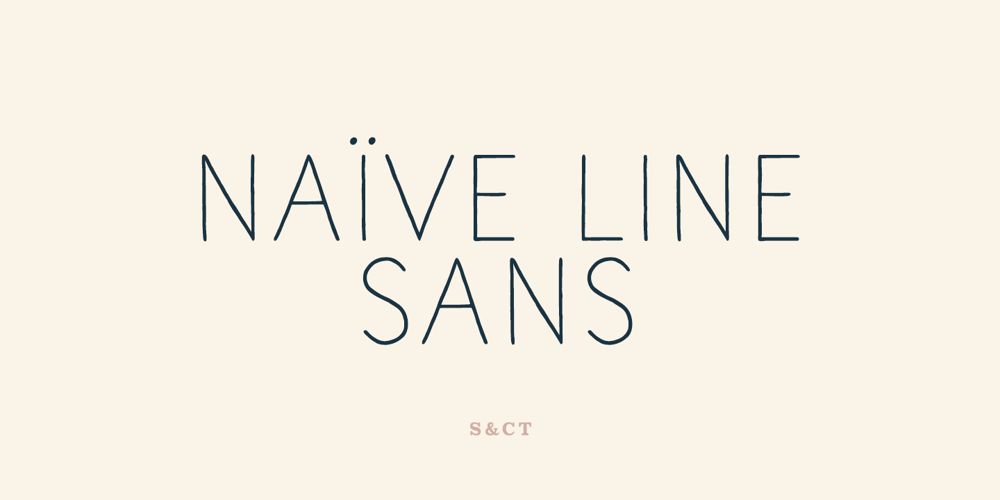
Naive Line Sans Font Family was designed by Julien Saurin, Fanny Coulez and published by S&C Type. Naive Line Sans contains 5 styles and family package options. Naïve Line Sans is an unusual handwritten sans serif font designed by Fanny Coulez and Julien Saurin in Paris. Our goal was to draw a font with finely irregular lines that give a human and whimsical feeling. We designed five weights, finely balanced, to assure a good readability whatever the size. This font is part of our Naïve superfamily that contains lot of variations: Line, Inline, Serif, Sans Serif, and a special Art Deco one. Just click on our foundry name to see them all! We hope you will enjoy our work. Merci beaucoup!